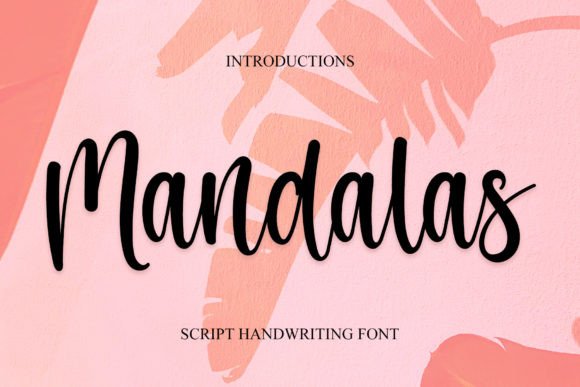
Introducing Mandalas Font, the enchanting script font that will transform your creative projects into masterpieces. Immerse yourself in the world of elegance and grace as this font dances across your designs, leaving a trail of beauty and sophistication in its wake.
Mandalas Font is a symphony of delicate lines, graceful curves, and sweeping flourishes. Its intricate details and flowing characters evoke a sense of timeless artistry, making it the perfect choice for projects that demand a touch of enchantment. Whether you are crafting logos, branding materials, labels, photography, watermarks, or special event invitations, Mandalas Font will elevate your designs to new heights.
Step into the world of Mandalas Font and unleash your creativity. Its PUA encoding grants you effortless access to a treasure trove of glyphs and swashes, empowering you to add a personal touch to your projects. Let your imagination soar as you incorporate Mandalas Font into your designs, transforming ordinary creations into extraordinary works of art.
With Mandalas Font, you can:
* Enchant your logos with a touch of elegance, ensuring your brand stands out from the crowd.
* Create branding projects that exude professionalism and sophistication, leaving a lasting impression on your clients.
* Design labels that ooze charm and personality, making your products irresistible to customers.
* Elevate your photography with a font that complements the beauty of your images, enhancing their emotional impact.
* Add a touch of magic to your watermarks, ensuring your designs are protected while adding a layer of artistic flair.
* Create special event invitations that capture the essence of celebration, setting the tone for an unforgettable occasion.
Mandalas Font is more than just a font; it is an invitation to explore the realm of creativity and artistry. With its timeless beauty and versatility, it will become your trusted companion in all your creative endeavors. Embrace the power of Mandalas Font and watch as it transforms your projects into captivating expressions of your imagination.